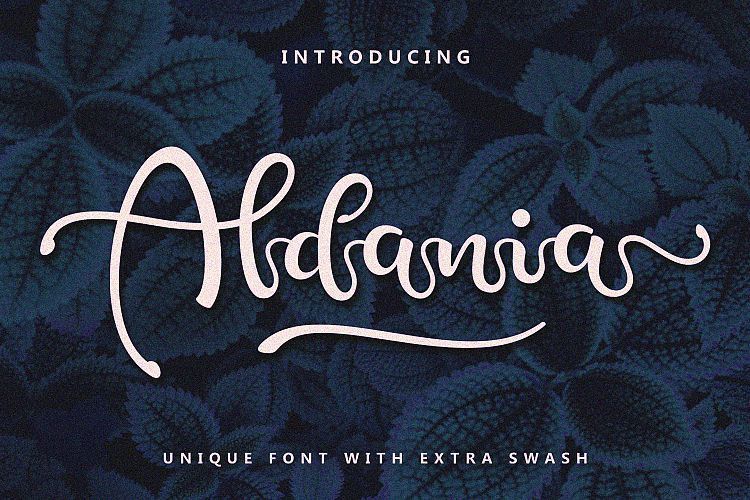
Aldania Script Font
Hi Font Lovers! A modern script font by Subectype. This is a new fresh & modern script with a handmade calligraphy style, decorative characters and a dancing baseline!
Introducing Aldania Font. Aldania Script Font is a beautiful and cute font with an unique feel and amazing swash. Fall in love with its adorable charm and use it for any creative project that needs a lovely feel.
So beautiful on invitation like greeting cards, branding materials, business cards, quotes, posters, and more!!